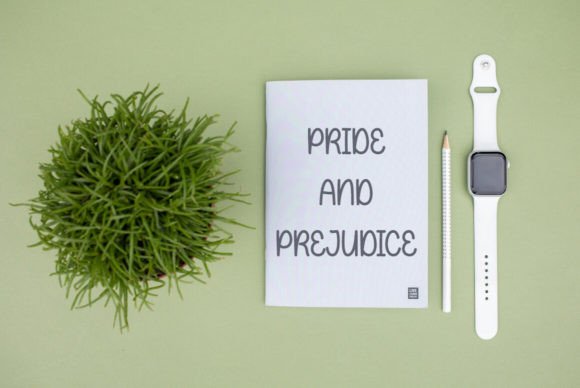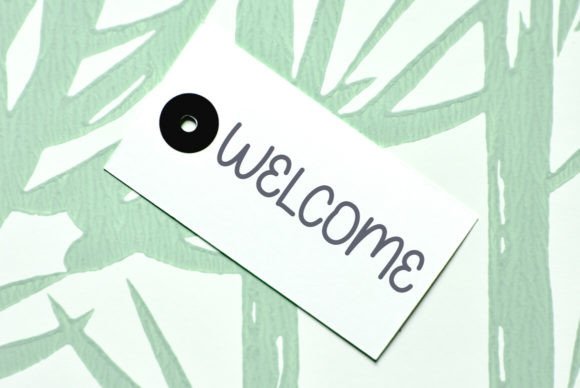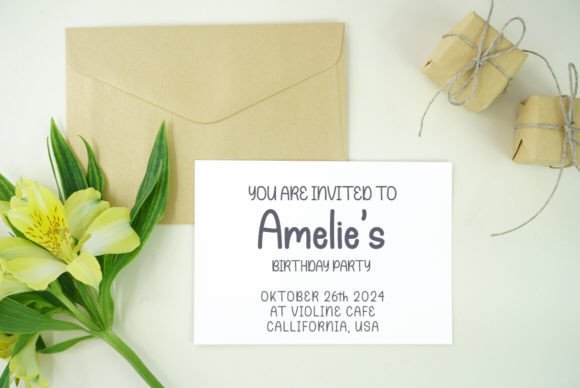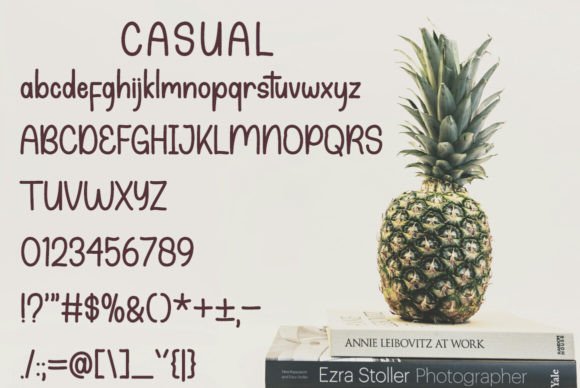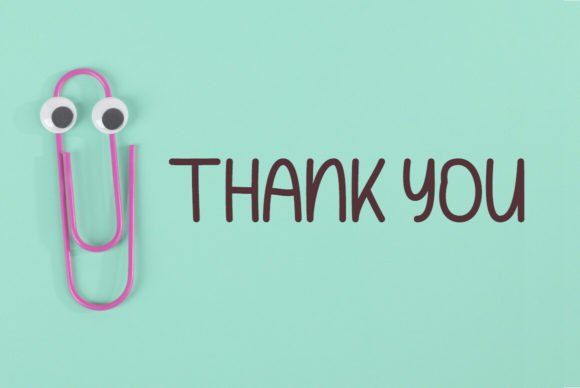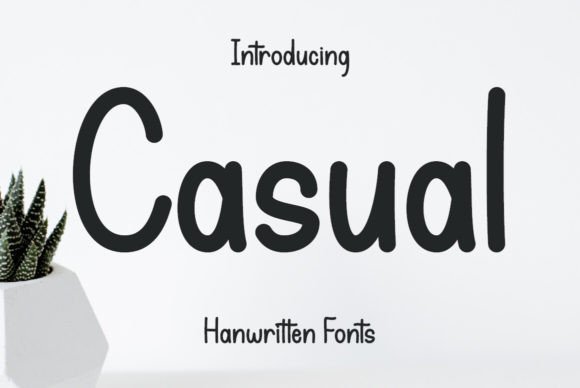
Discover the Charm of Casual: The Ultimate Font for Creative Expression
I’ll never forget the moment I stumbled upon Casual, a font that effortlessly charmed its way into my design projects. I was working on a personal planner, aiming to create a warm and inviting aesthetic, but struggling to find the right font. A client’s request for a “friendly and approachable” vibe had me scouring font libraries, only to come across Casual. Its simplicity and adorable look captivated my heart, and I knew I had found the perfect fit.
As I dove deeper into Casual, I discovered a font that truly stands out from the crowd. Here’s what I’m obsessed with:
- ✨ Effortless charm: Casual exudes a warm, unassuming appeal that’s perfect for a wide range of design projects.
- ✅ Clean and simple: Its clean lines and minimal ornamentation make it incredibly versatile.
- 💫 Adorable look: Casual’s unique character set is sure to capture hearts and add a touch of personality to your designs.
Of course, no font is perfect, and Casual has a few minor quirks:
- 🤔 Limited formal applications: Casual’s casual nature might not make it the best fit for formal or corporate designs.
- ⚠️ Glyph limitations: While Casual has a wide range of glyphs, it might not have every special character you need.
The Story Behind Casual: Designer Inspiration
While the true story behind Casual remains a mystery, it’s easy to imagine a designer aiming to create a font that captures the warmth and charm of handwritten text. Perhaps they wanted to craft a font that would make digital communication feel more personal, or inspire creativity in designers and crafters. Whatever the inspiration, Casual has undoubtedly become a beloved font among creatives.
| Font Name | Casual Font |
| Author | Hardiboy Design |
| What makes Casual so special? | Casual’s unique blend of simplicity and charm makes it a standout font for a wide range of design projects. |
| Is Casual suitable for formal designs? | While Casual can be used in formal designs, its casual nature might not make it the best fit. Consider using a more traditional font for formal applications. |
Casual is more than just a font – it’s a creative canvas waiting for your expression of artistry. Whether you’re a designer, crafter, or creative hobbyist, Casual is sure to become a trusted companion in your design journey.